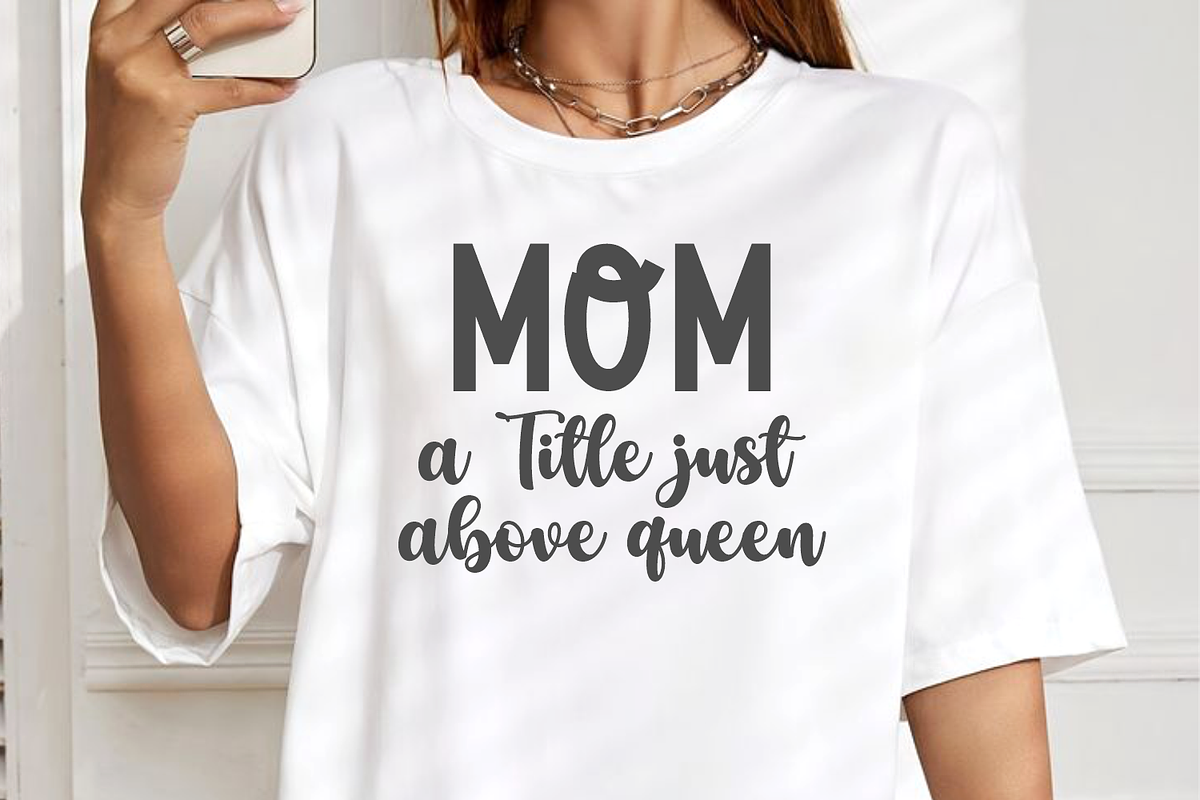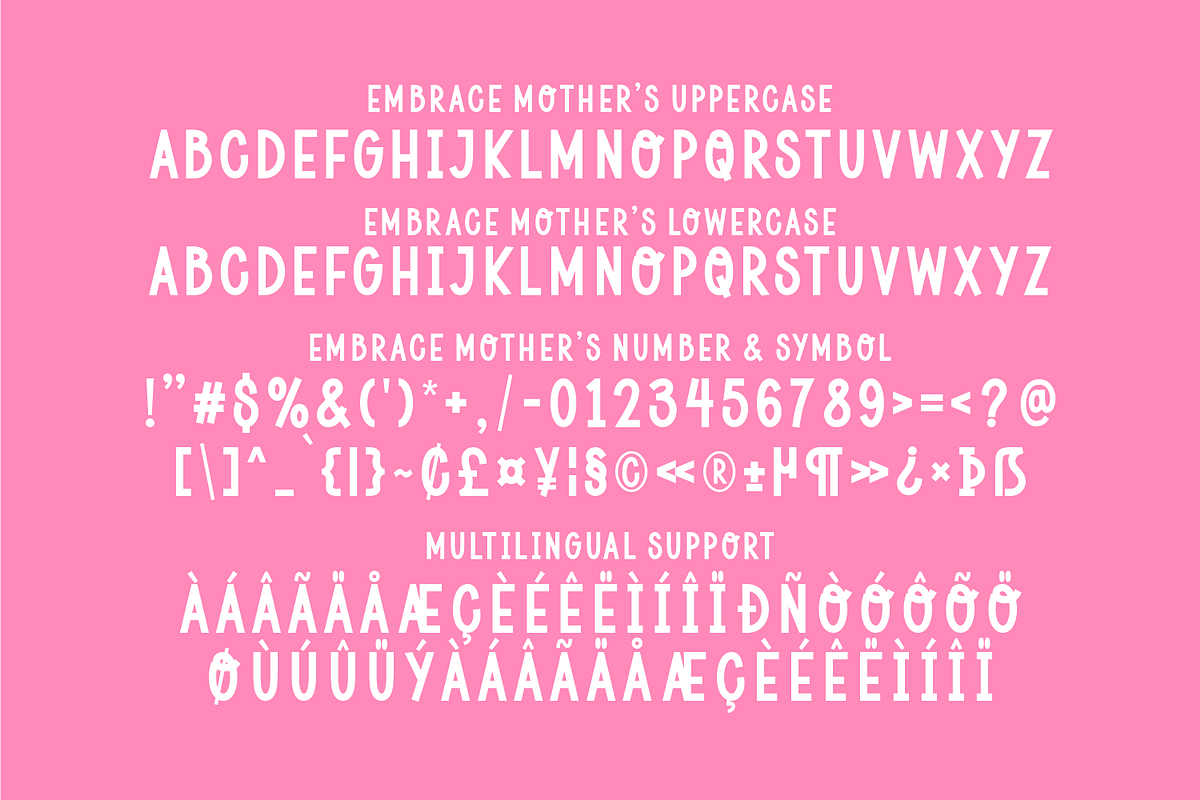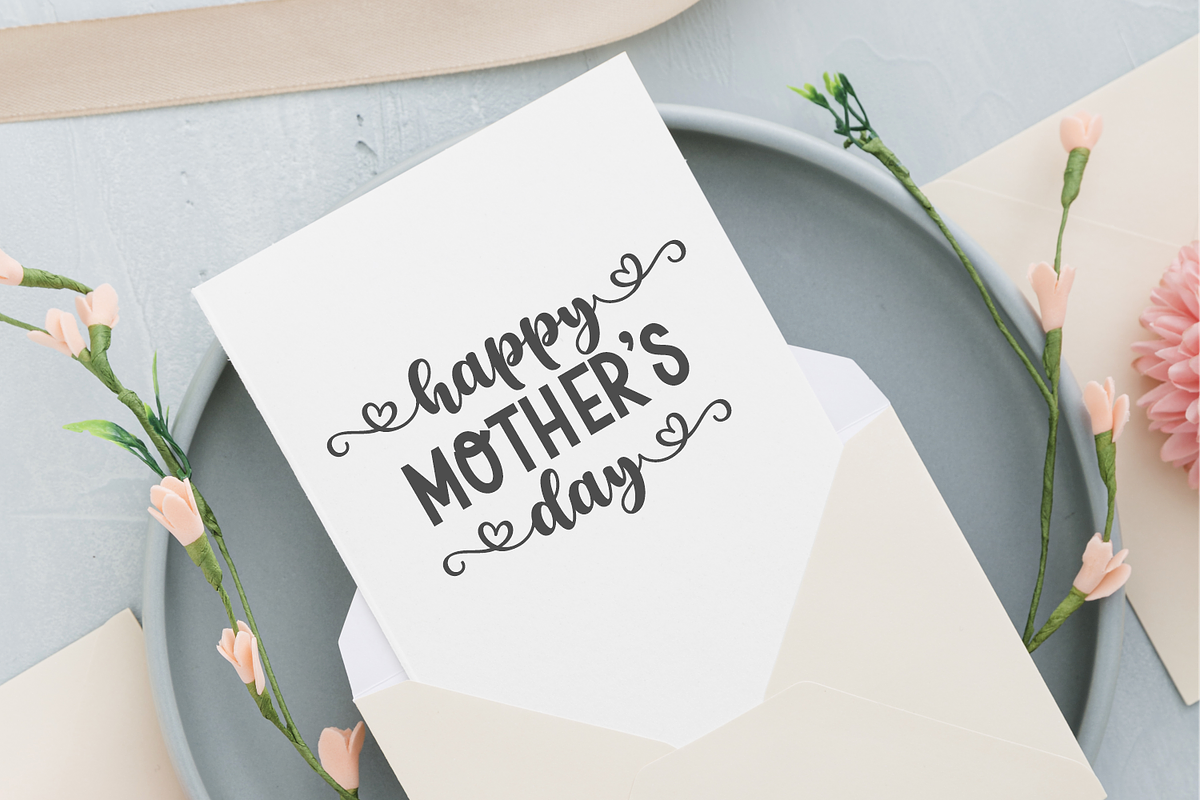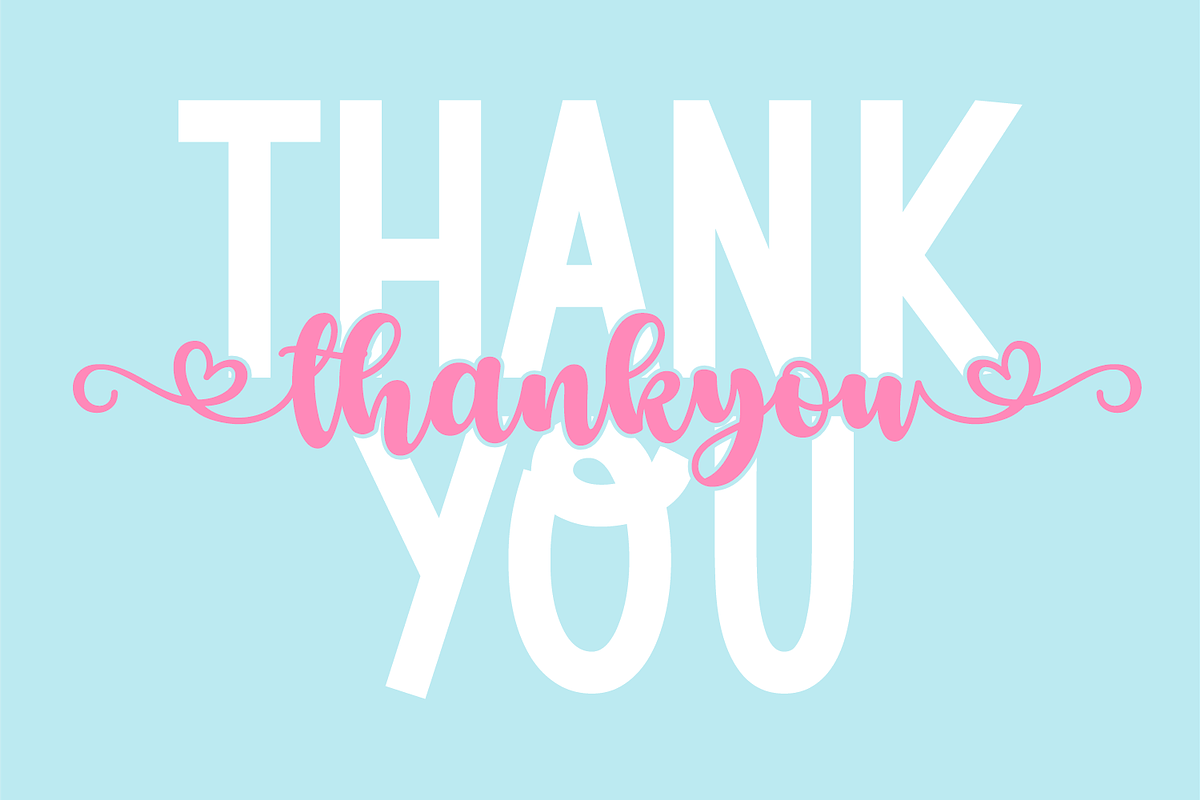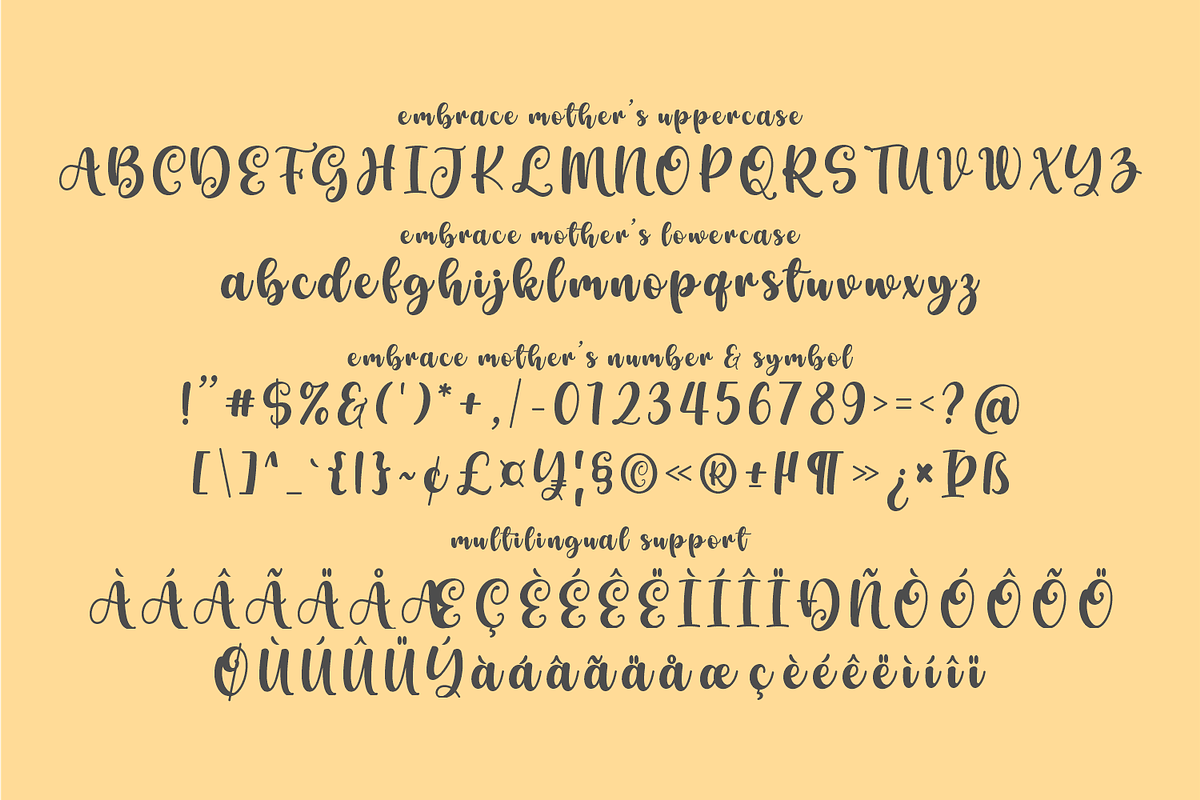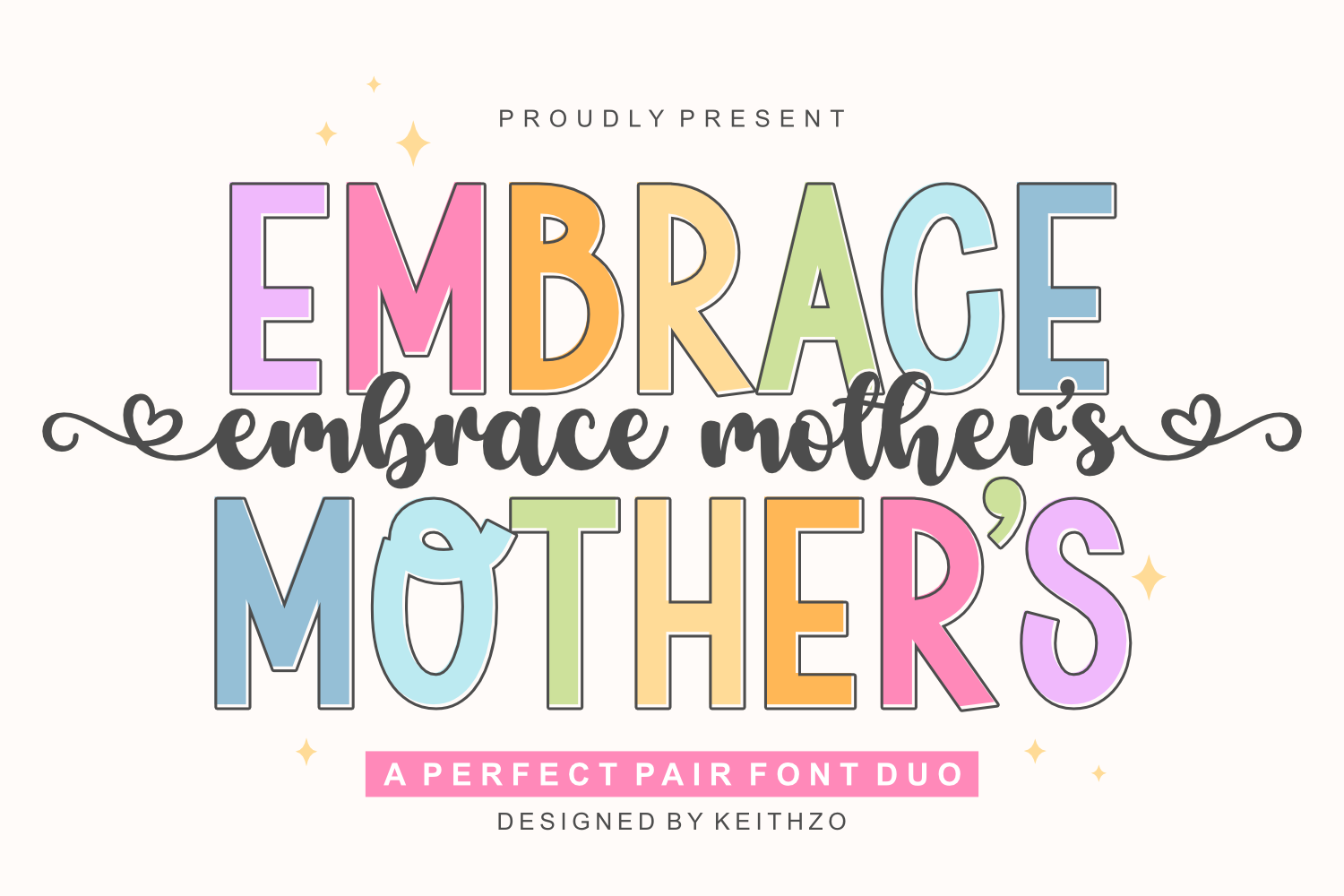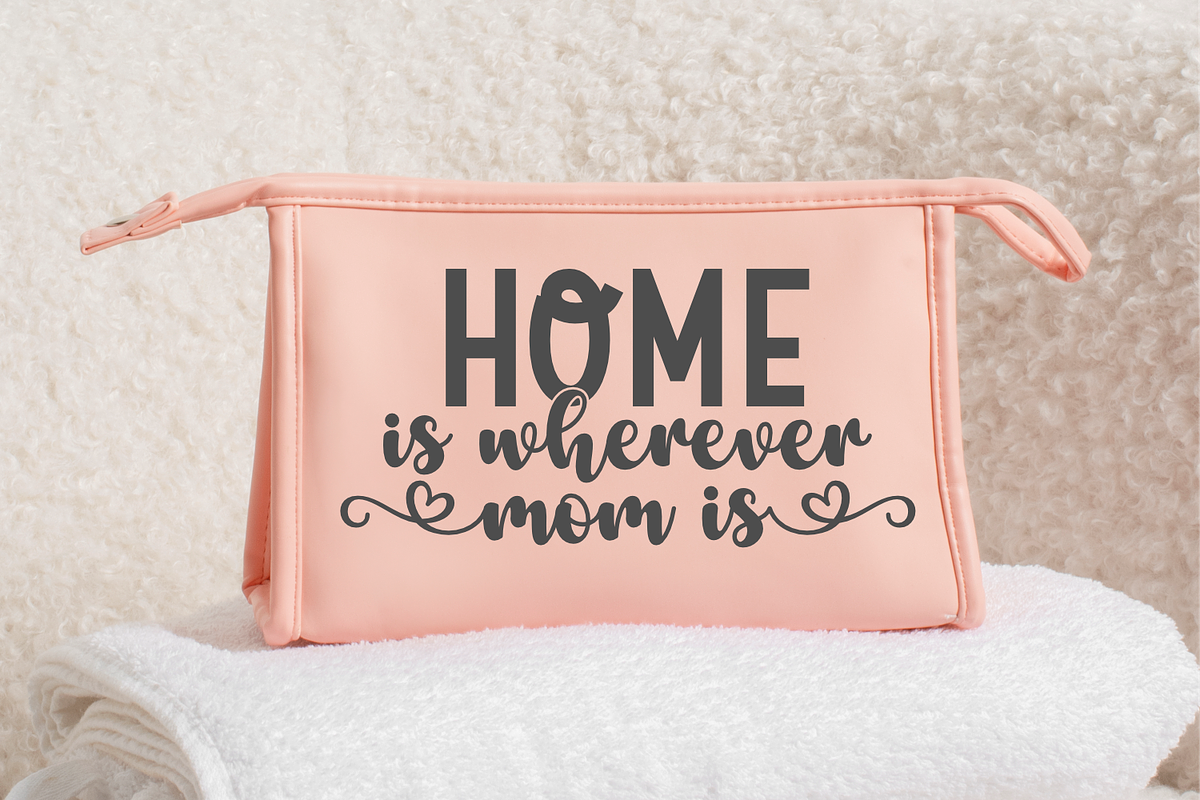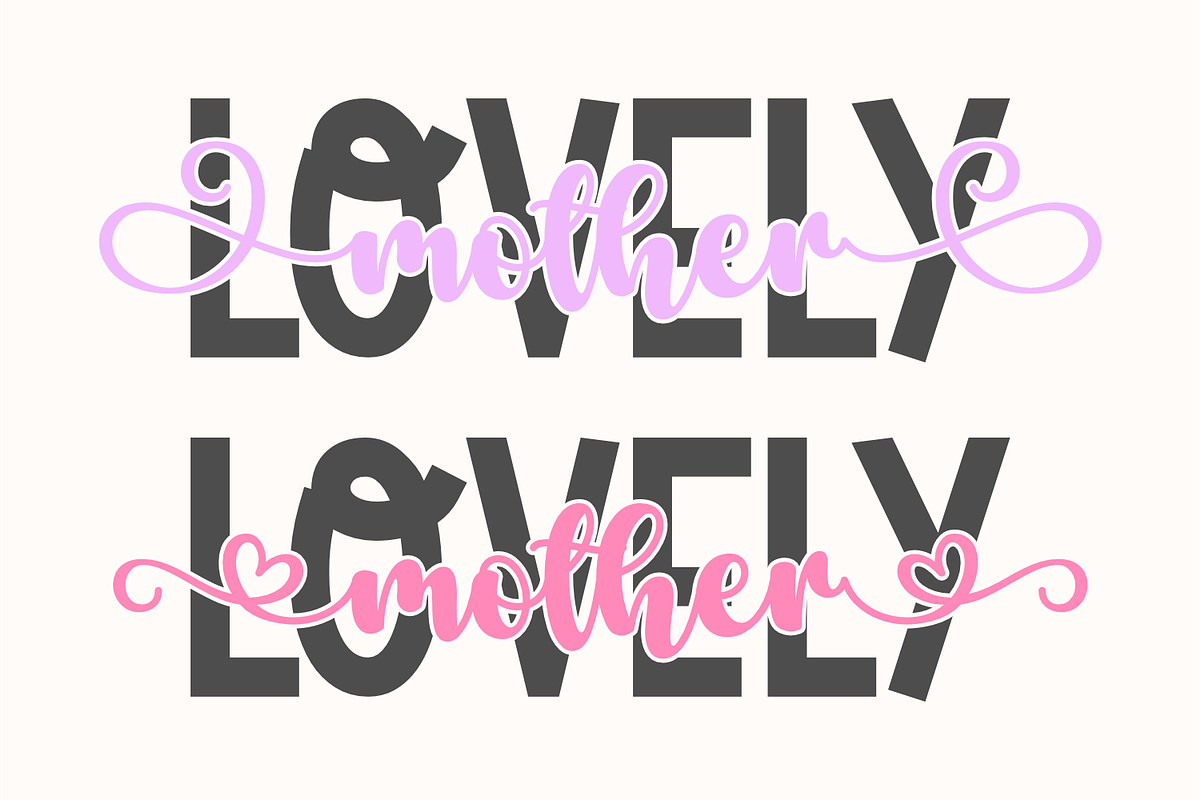
Embrace Mother's - Perfect Font Duo
Unlock the Heart of Mother’s Day designs with this enchanting font duo! Featuring a bold, fun sans serif that radiates joy, paired with a delicate script boasting a heart-shaped tail, this perfect pairing creates visuals that are not just harmonious, but irresistibly heartwarming. Elevate your wedding stationery, craft unforgettable invitations, infuse love into every design, and build feminine brands with a modern yet timeless appeal that truly connects. Make this Mother’s Day unforgettable – one beautiful letter at a time.